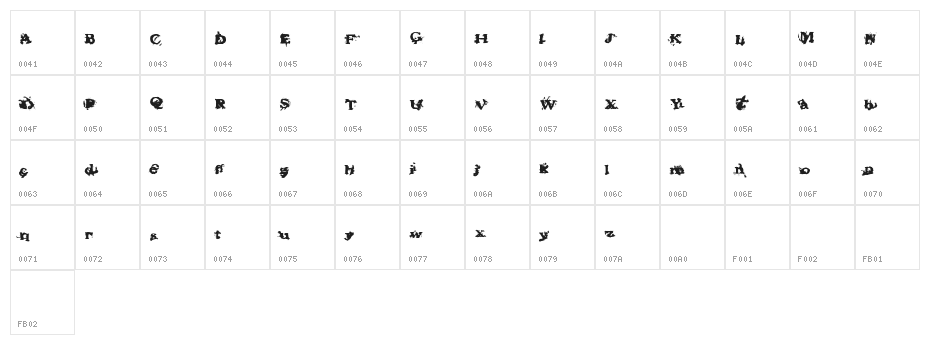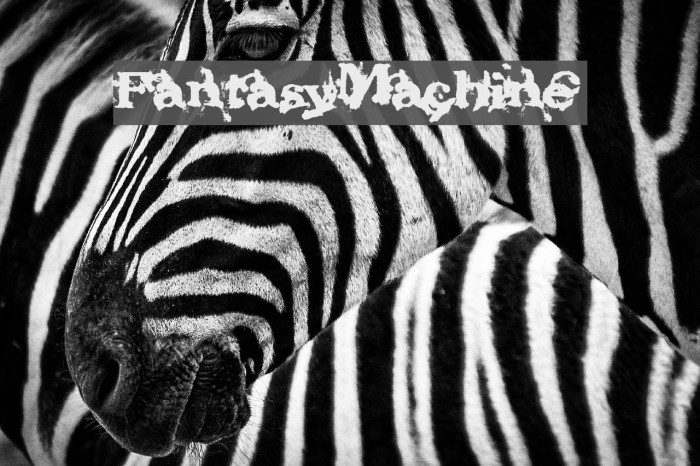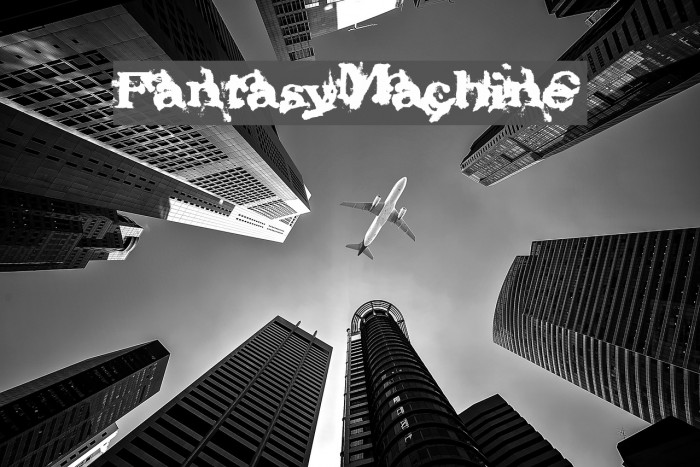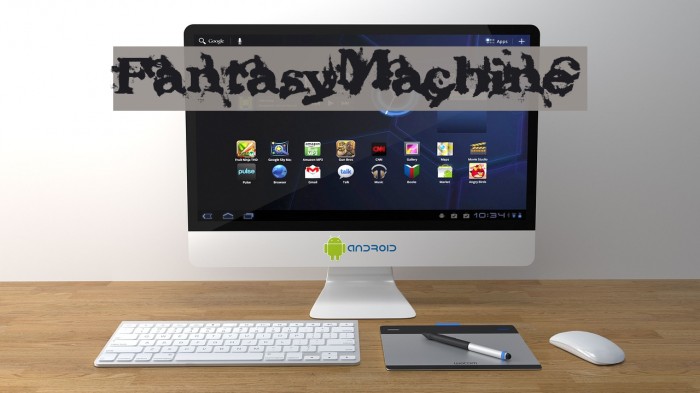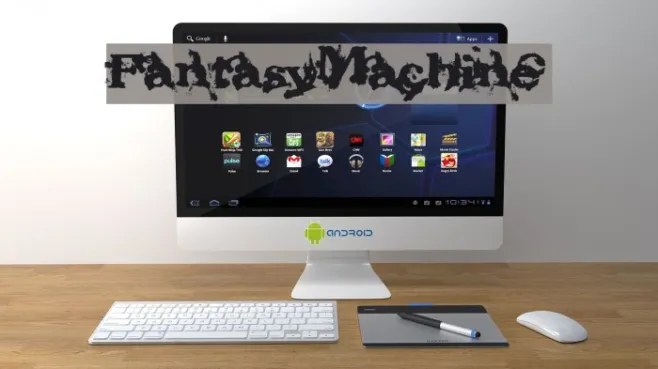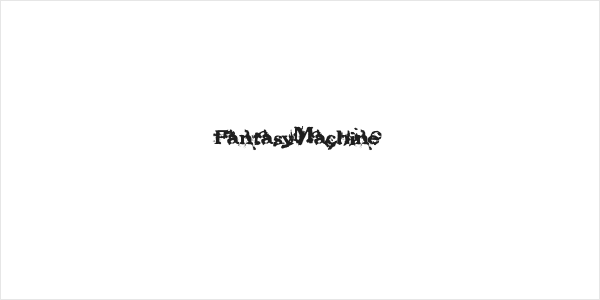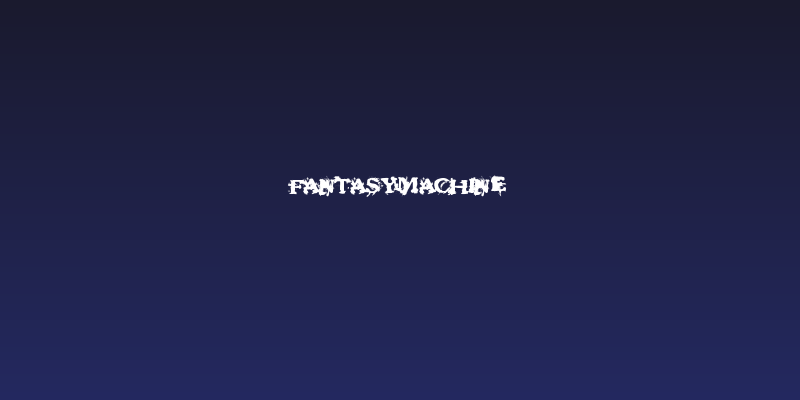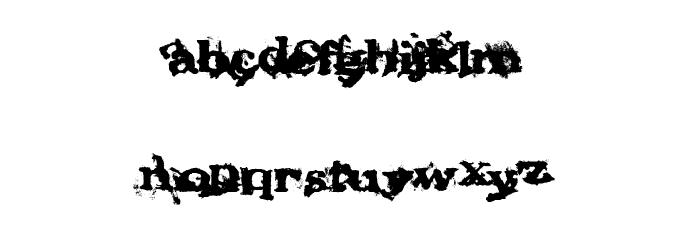
FantasyMachine Font
FantasyMachine Description
This font features a highly decorative and distressed style, reminiscent of grunge or fantasy themes. The characters are bold and have an irregular, textured appearance, giving them a rugged and edgy look. The uppercase and lowercase letters maintain a consistent style, with jagged edges and a sense of movement, as if they are in a state of decay or erosion. This font is particularly eye-catching and would stand out in any design that requires a dramatic and unconventional typeface.
Proposed ProjectsIdeal for use in fantasy-themed posters, video game titles, album covers, or any project requiring a dramatic and unconventional typeface.